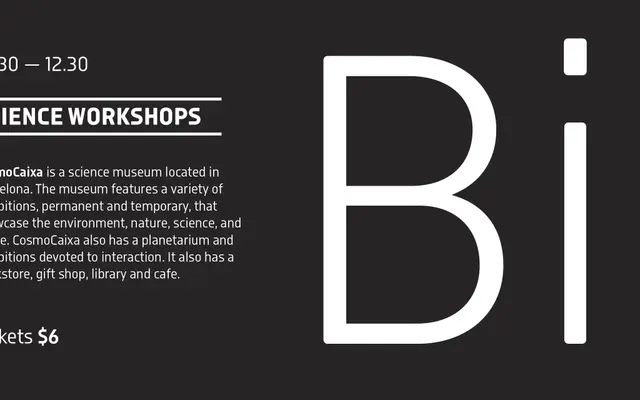
A text-oriented spin-off of Ciutadella with open counters, a raised x-height and softened corners suited to sports, science and technology contexts.
Born from Emtype's Ciutadella, Isotonic was reworked with wider counters and a higher x-height to improve legibility at body sizes and on screen. The soft corners lend it an approachable character without sacrificing the clarity needed for data-heavy or editorial environments. Ten styles run across five weights from Light to Bold with matching italics throughout.
Isotonic is a geometric-leaning sans-serif derived from the Ciutadella family, with open counters, a high x-height and soft corners that place it firmly in the humanised geometric sans category.